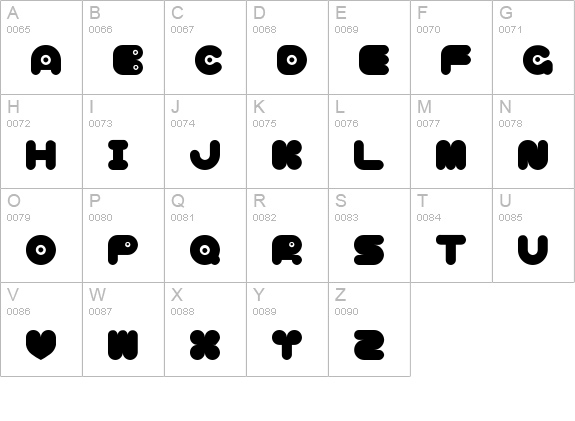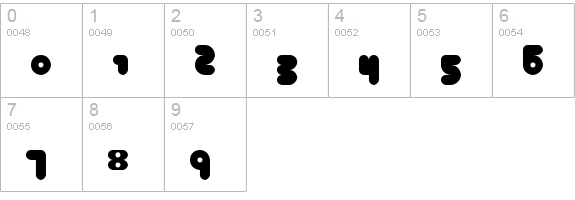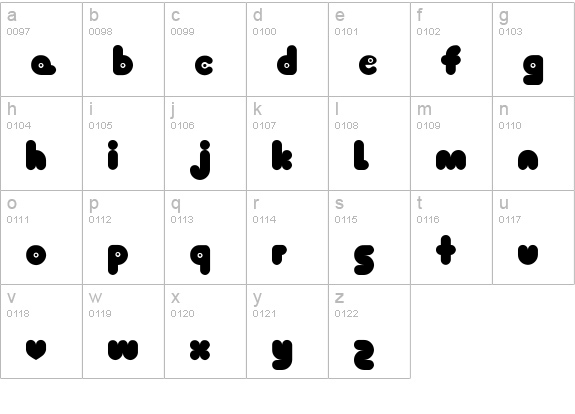
Introducing Tokyo Honey Chan, a delightful and playful font that will add a touch of whimsy to any design project! With its charming and unique letterforms, this font captures the essence of youthful energy and creative expression. Whether you're designing a logo, crafting eye-catching headlines, or creating fun social media graphics, Tokyo Honey Chan is the perfect choice to bring a vibrant and lively feel to your work. But what sets Tokyo Honey Chan apart is not just its captivating aesthetics - it's also the fact that it is available for free! Yes, you read that right. This incredible font can be freely downloaded at FontsMarket.com, making it accessible to designers and creatives of all levels. Now you can enjoy the beauty and versatility of Tokyo Honey Chan without breaking the bank. With a wide range of characters and ligatures, Tokyo Honey Chan offers endless possibilities for customization and personalization. Mix and match upper and lowercase letters, experiment with alternate glyphs, and play with various weights to create your own unique typographic compositions. Whether you're aiming for a bold and energetic look or a more subtle and refined style, Tokyo Honey Chan has got you covered. Not only is Tokyo Honey Chan visually captivating, but it is also incredibly easy to use. Its clean and well-defined outlines ensure legibility even at smaller sizes, while its generous spacing and balanced proportions make it a joy to read. Whether you're designing for print or digital, Tokyo Honey Chan will make your text pop and stand out from the crowd. So why wait? Download Tokyo Honey Chan for free at FontsMarket.com and elevate your designs to new heights. Unleash your creativity and let this font be your secret weapon in creating visually stunning and memorable designs. Tokyo Honey Chan is the perfect blend of style, versatility, and affordability - a must-have addition to any designer's toolkit. Get your hands on this gem today and let your imagination soar!